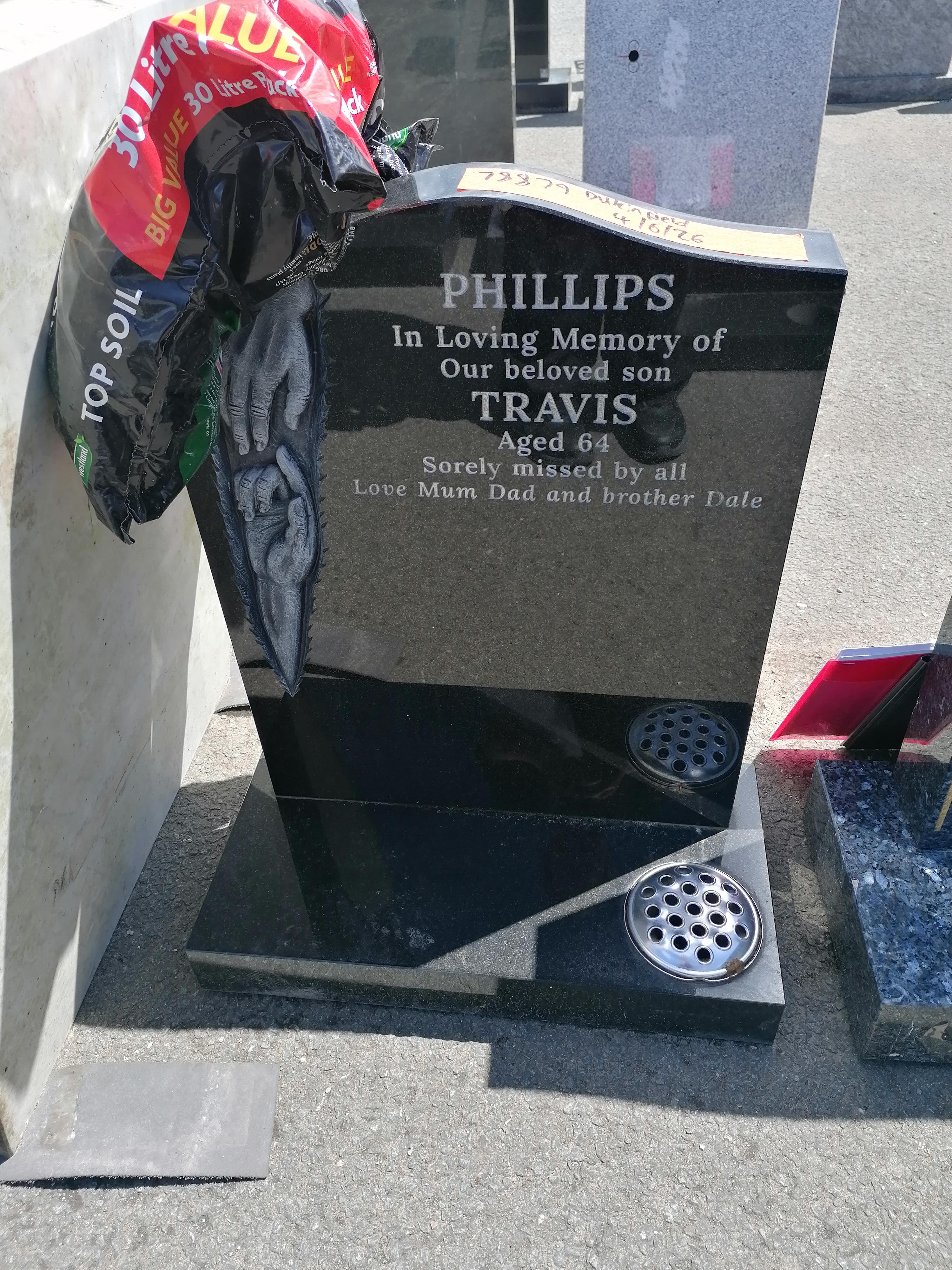
please help with bold roman font
It seems to be bold and bold-italic versions of the same font but I can’t find one that matches the TRAVIS, that lower case g and the italic lower case v
Good afternoon, I believe this may be a font named Lora Bold.